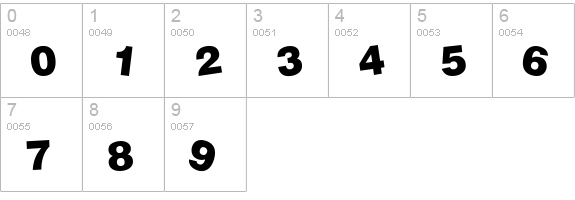
Soopafresh Font Details
Introducing Soopafresh, a stunning and versatile font that is sure to make your designs pop! With its bold and modern letterforms, Soopafresh is perfect for capturing attention and adding a touch of sophistication to any project. But what sets Soopafresh apart from the rest? Well, not only does it boast a plethora of stylish ligatures and alternates, but it also comes with a fantastic price tag - free! That's right, Soopafresh is freely available to download at FontsMarket.com, making it accessible to designers of all backgrounds and budgets. Whether you're working on a logo, branding, packaging, or any other design project, Soopafresh will effortlessly elevate your work to new heights. Its clean and crisp lines, combined with its subtle yet impactful details, create a harmonious balance that is both visually pleasing and highly legible. Soopafresh is the epitome of versatility, effortlessly adapting to any style or concept you have in mind. From elegant and refined to bold and edgy, this font can do it all. Its wide range of weights and styles ensure that you have the perfect option for every occasion. So, why wait? Take advantage of this incredible opportunity to enhance your designs with Soopafresh. Download it for free at FontsMarket.com and unleash your creativity today!